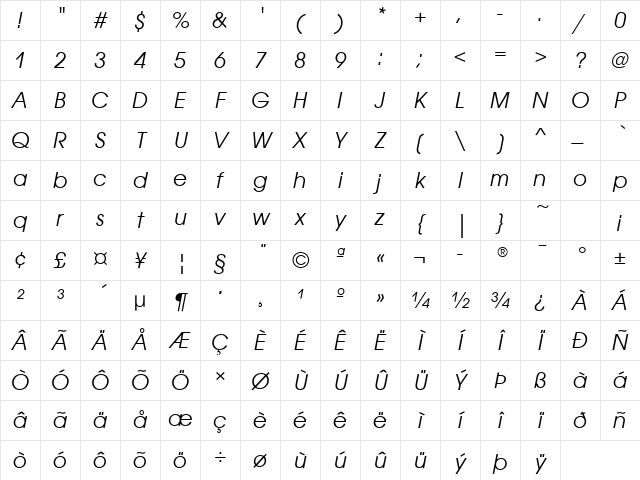
Complete AvantGardEF Book Oblique glyph index. Displaying only characters natively supported by AvantGardEF Book Oblique font.
AvantGardEF is a composed and adaptable typeface that performs quietly and consistently across a wide range of design contexts. The slanted form adds forward momentum and visual energy.
Pro Tip: Use AvantGardEF for emphasis, pull quotes, and subheadings where its slanted energy can add rhythm to the layout.